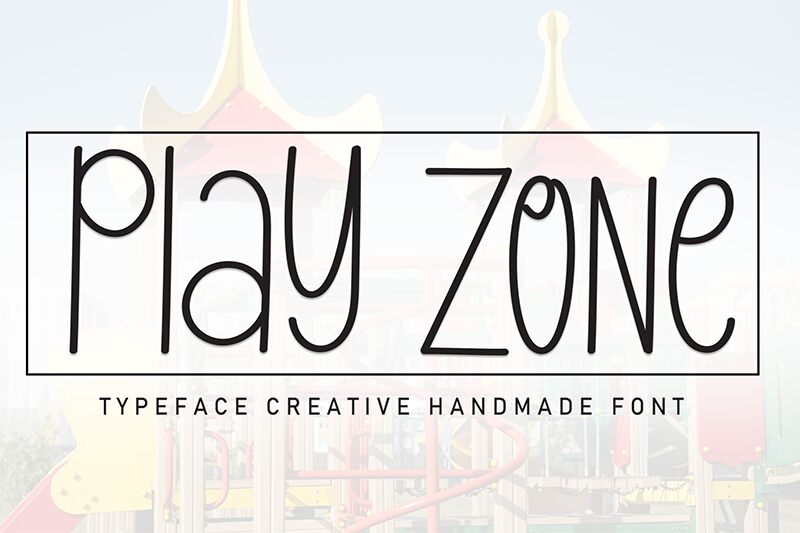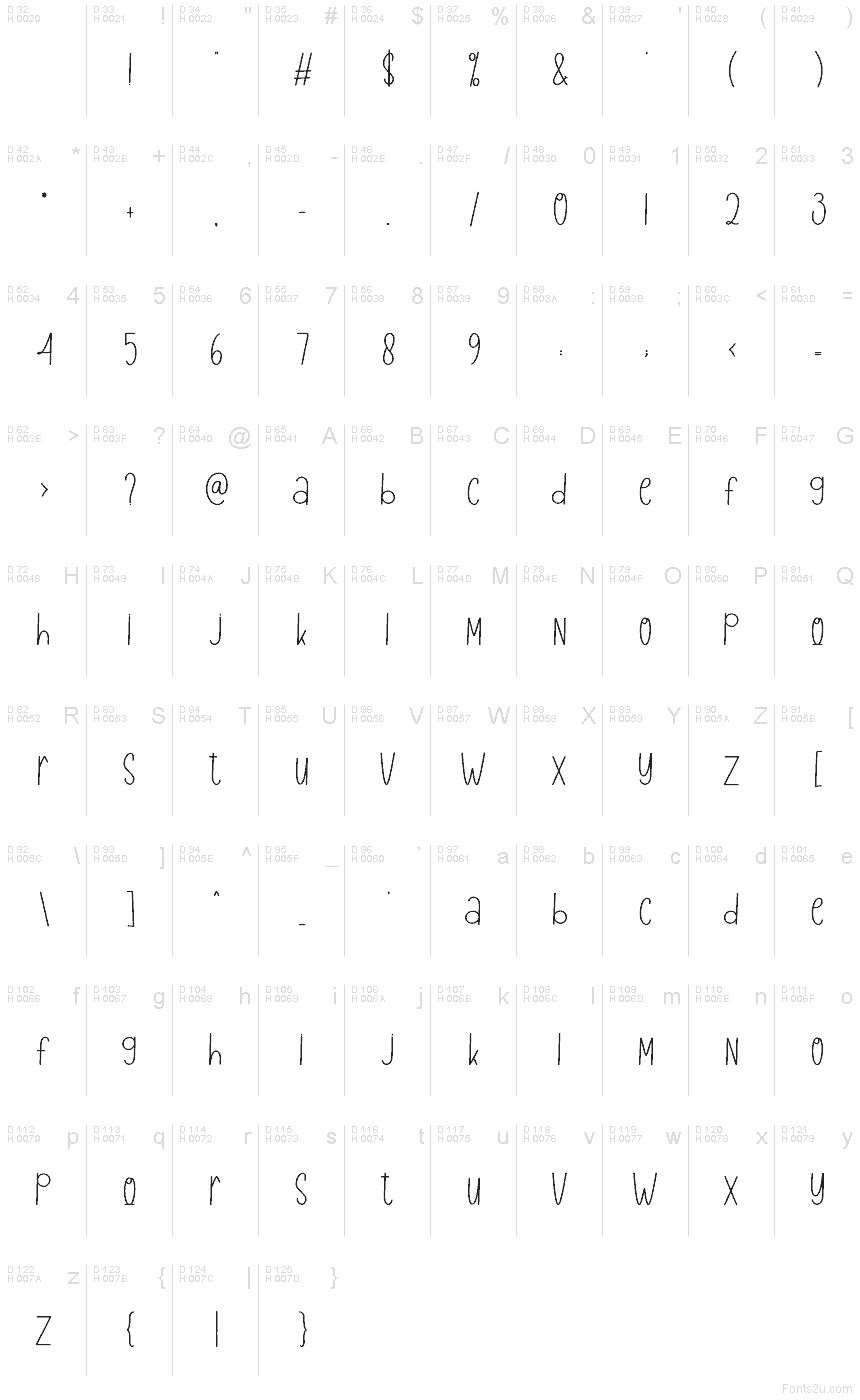
Play Zone
Play Zone font by Andi Moz is a free handwritten typeface that feels like it was sketched with a smooth black marker on a whiteboard. Tall, skinny letters with rounded edges and loopy curves give it a light, bouncy rhythm that reads as friendly and energetic rather than messy. The spacing is airy and relaxed, so each word looks like it’s happily stretching its legs across the line.
Using Play Zone, you can bring that playful vibe to kids’ posters, classroom printables, birthday invitations, toy packaging, party banners, and cheerful social media graphics. This free font really shines in larger sizes where its slim strokes and quirky curves can stand out. For longer text, pair Play Zone with a clean rounded sans serif and let Play Zone handle the headlines, titles, and big, fun words.